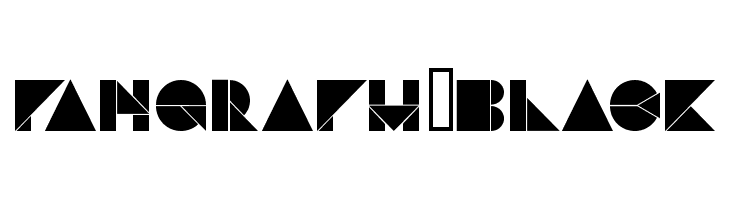
( Christian Munk - fontstruct.com/fontstructors/25776/cmunk )
A geometric and abstract font with bold, circular shapes and a modern aesthetic.
( DV82 - David Alcañiz - www.behance.net/dalcaniz )
A modern, geometric font with sharp angles and a futuristic aesthetic.
( Daniel Angermann - www.daniel-angermann.de/ )
A decorative, geometric font with intricate patterns and bold outlines.
( Daniel Angermann - www.daniel-angermann.de/ )
A bold, abstract font with unique geometric designs for each letter.
( Darrell Flood )
A whimsical, italicized font with starry sparkles, perfect for festive designs.
( Gabriel FAM - www.gabrielfam.com.br )
A bold, geometric font with a modern and artistic style.
( Gavin Fiorina - www.gavfior.blogspot.com )
A geometric, futuristic font with bold, circular shapes and unique cut-out patterns.
( Giacomo Marangon - www.giacomomarangon.altervista.org/ )
A bold, geometric font with a modern, artistic design.
( Here Be Monsters - monsterswithin.com )
A bold, geometric font with diagonal stripes and a modern, futuristic look.
A futuristic, gradient-lined font with bold, geometric characters.